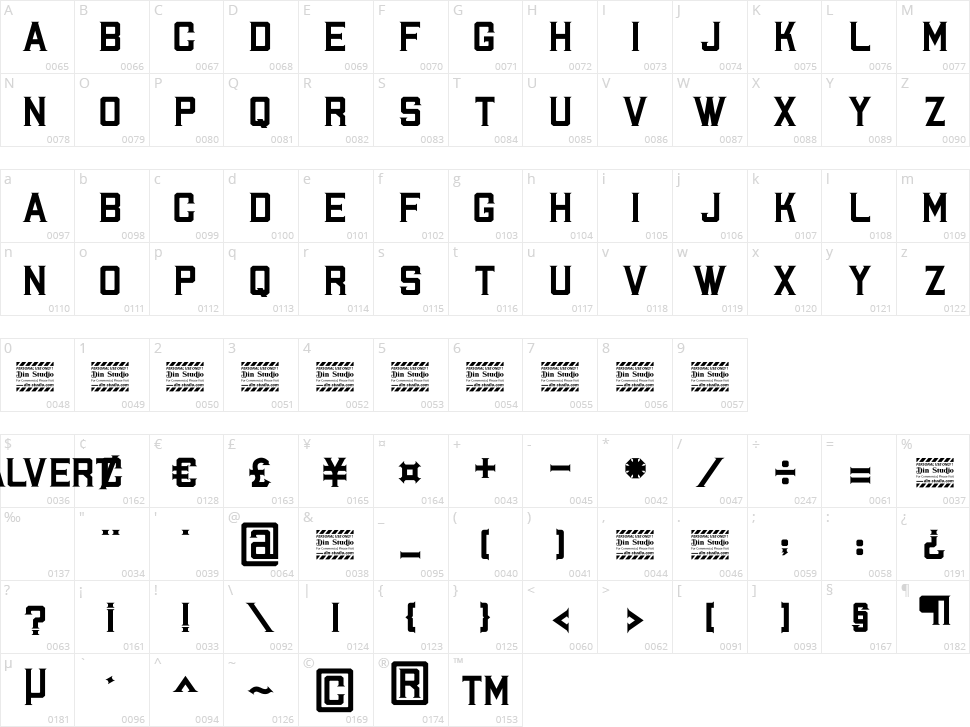
Halvert
Halvert is an amazing display font. The font is suitable for any project like branding , lettering , tshirt print
and many others.
Designer Name: Din Studio